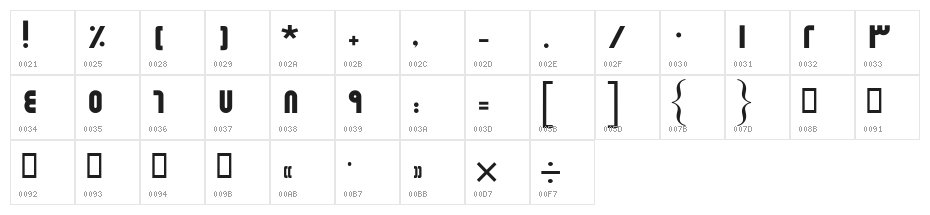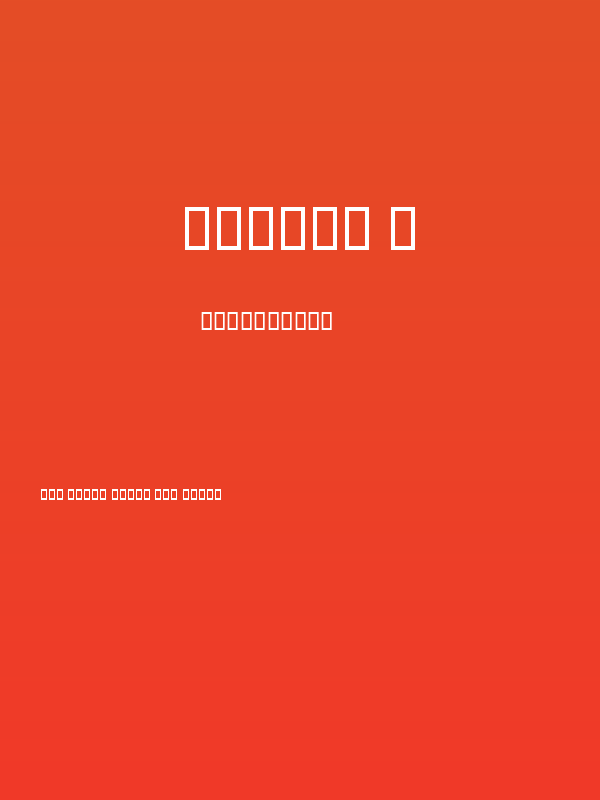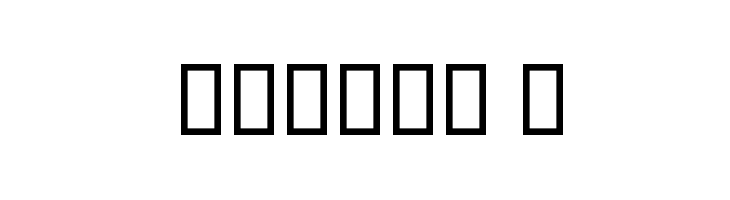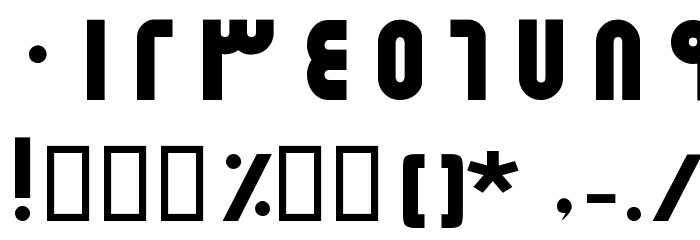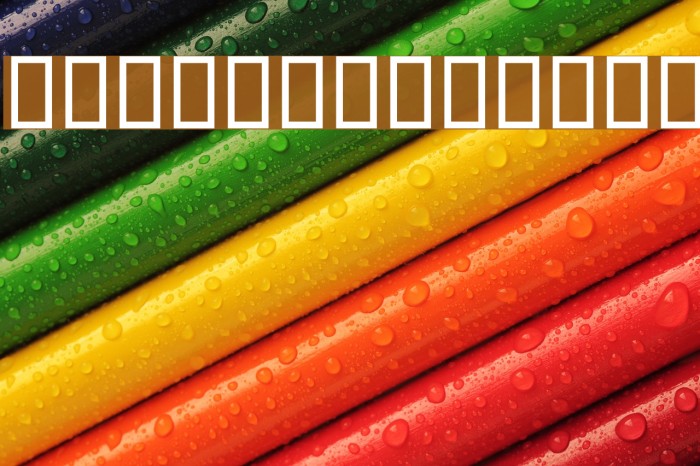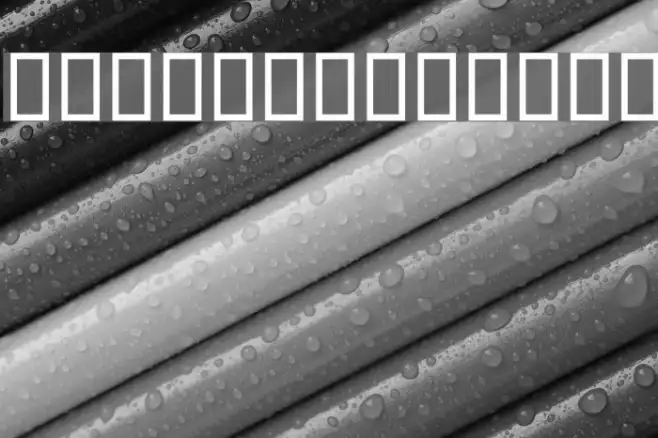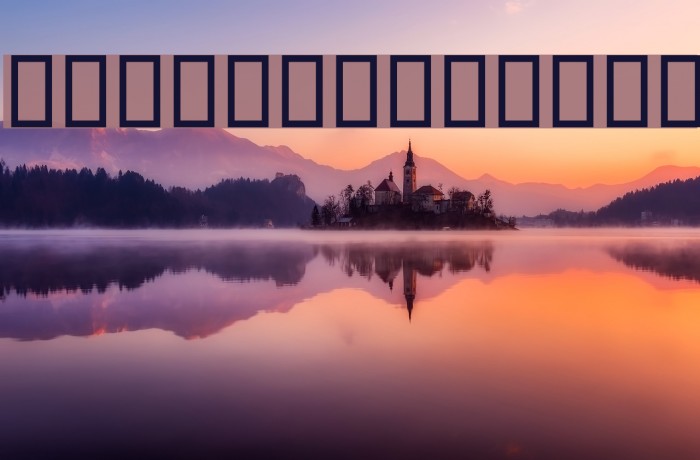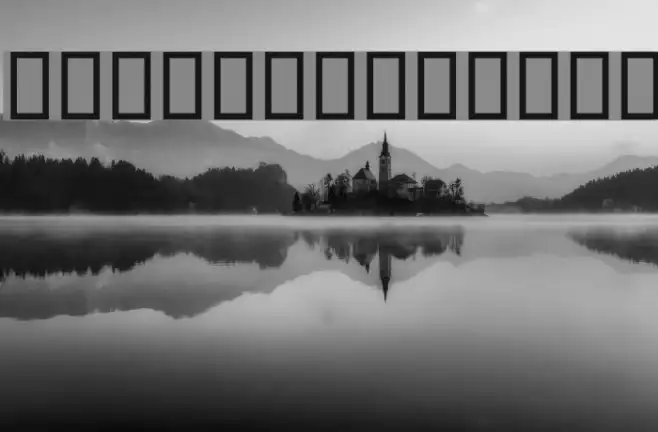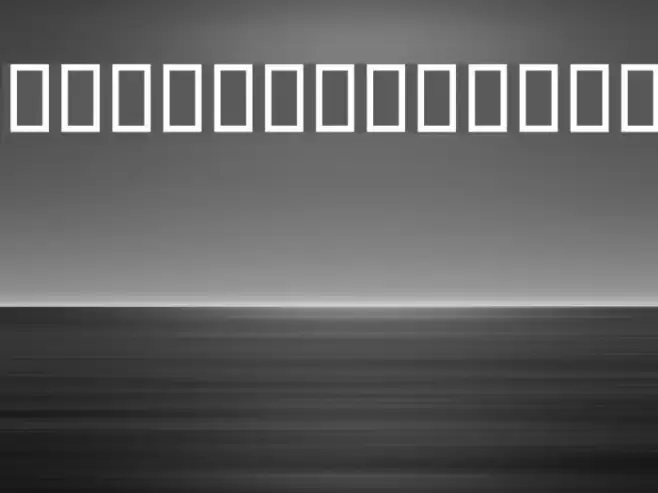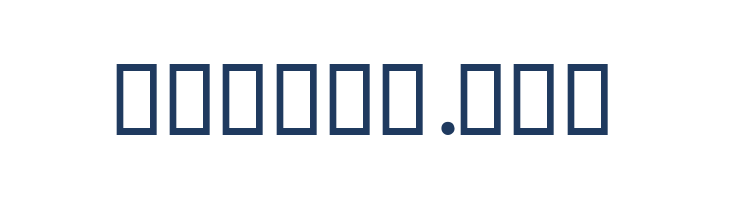
Modern I Font
Modern I Description
This font features a bold and modern design with clean, geometric lines and a strong presence. The characters are uniformly structured, offering a sense of balance and stability. The uppercase letters are particularly striking, with a block-like appearance that commands attention. The lowercase letters maintain the same geometric style, ensuring consistency throughout the typeface. The numerals are clear and easy to read, making them suitable for a variety of applications. Special characters are included, each designed to match the overall aesthetic of the font. This typeface is ideal for projects that require a contemporary and assertive look.
| Proposed Projects | Ideal for branding, advertising, posters, and digital media where a modern and bold statement is needed. |